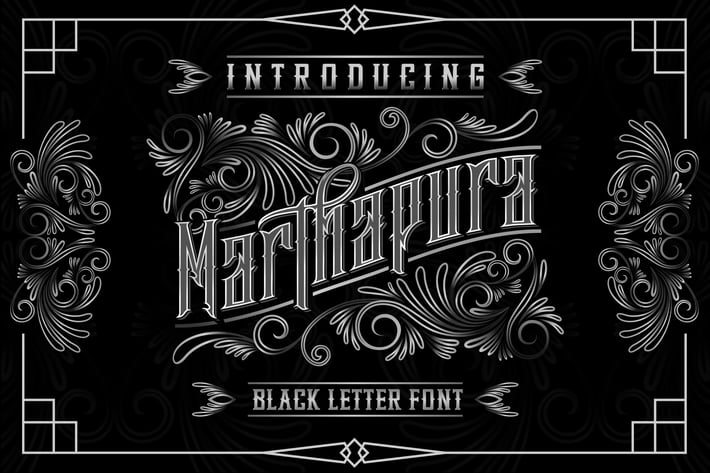
Marthapura Display font
Marthapura Display font can be used in different purposes: logo and branding, poster, product packaging, advertising, invitations, port apparel, game industry, movie and any typography design projects.